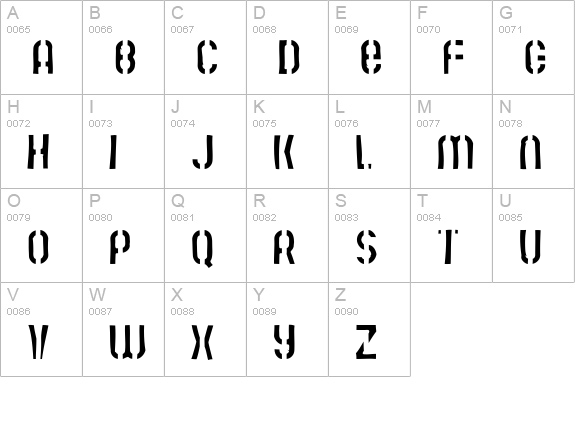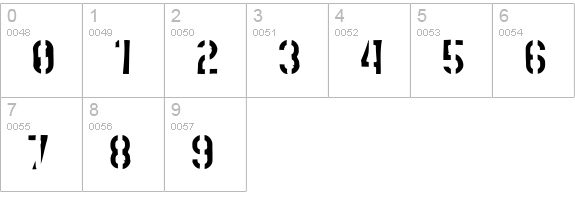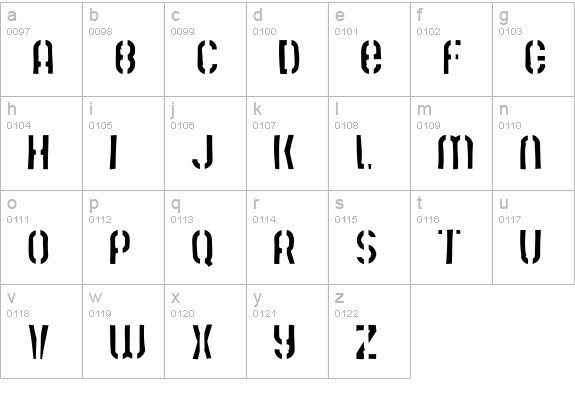
Mute Fruit Skimpy Krash Font Details
Mute Fruit Skimpy Krash font is a unique and eye-catching typeface that is perfect for adding a touch of edginess to your designs. With its sleek and modern design, this font is sure to make a statement and grab attention. The bold and playful nature of Mute Fruit Skimpy Krash font makes it ideal for a variety of creative projects, from branding to posters to social media graphics. Best of all, Mute Fruit Skimpy Krash font is available for free download at FontsMarket.com. This means you can easily add this stylish font to your collection without breaking the bank. So why wait? Download Mute Fruit Skimpy Krash font today and start creating stunning designs that stand out from the crowd.